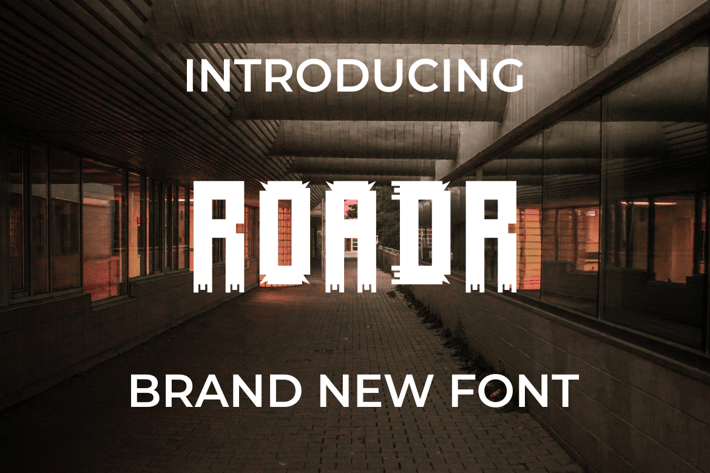
ROADR Font
Introducing our new product ROADR Font - Modern Font
ROADR Font - Modern Font is a bold and authentic display font. The font is suitable for any branding project like logo, t-shirt printing, esport, and many more. outstanding in a wide range of contexts.